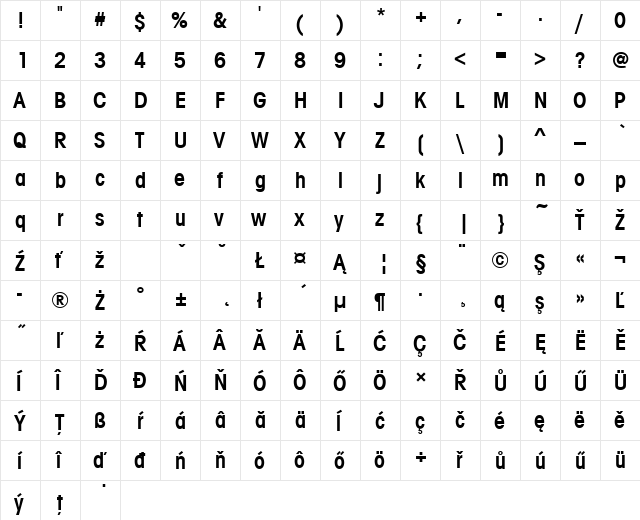
AvantGarGotItcTEEDemCon Regular Font Preview
AvantGarGotItcTEEDemCon Regular
AvantGarGotItcTEEDemCon Regular Font Details
Design Context for AvantGarGotItcTEEDemCon Typeface
AvantGarGotItcTEEDemCon offers clean, dependable letterforms without strong stylistic allegiance, making it a practical choice for designers who need flexibility.